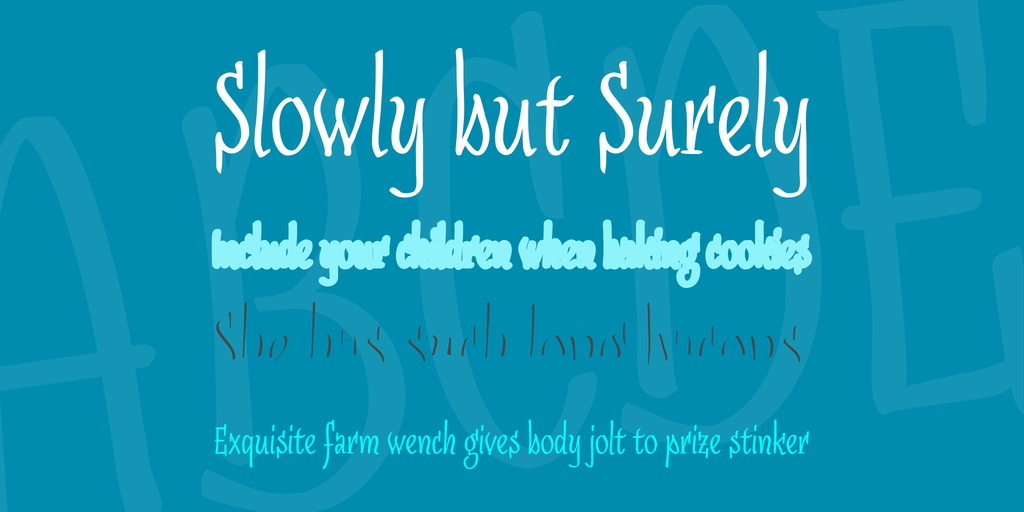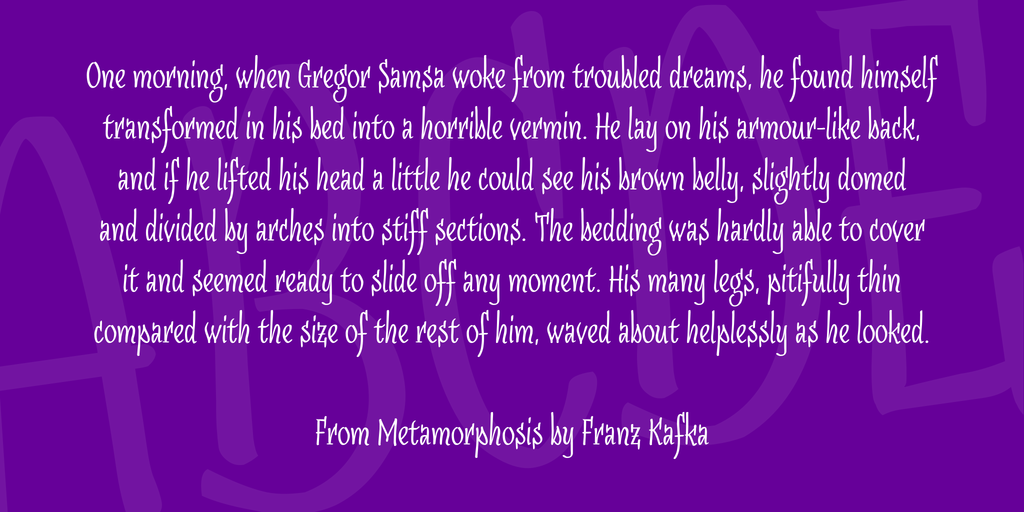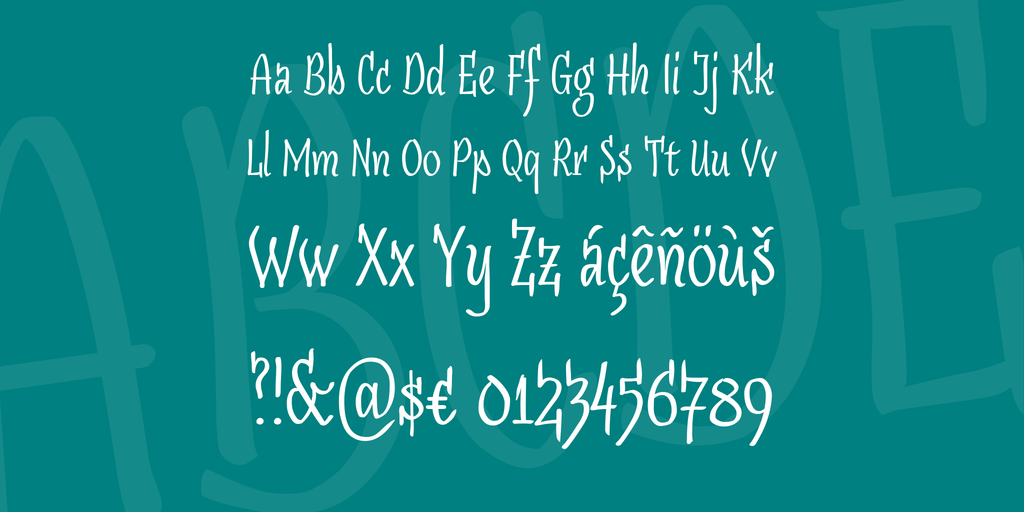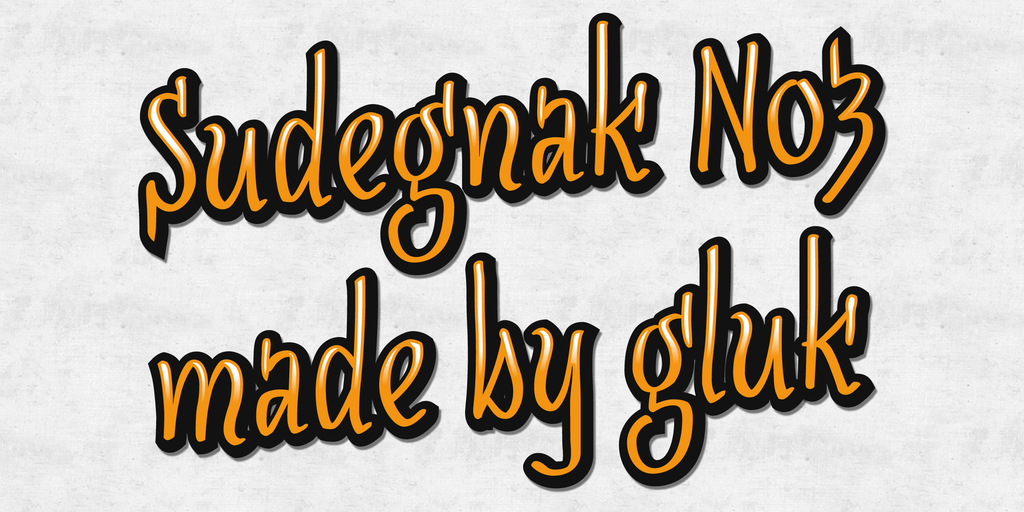
SudegnakNo3 Font Family
SudegnakNo3 Font Family Made by gluk
Hand­writ­ten, car­toon­ish, three layer font SudegnakNo3 (No3a and No3c) with Con­tex­tual Alternates.